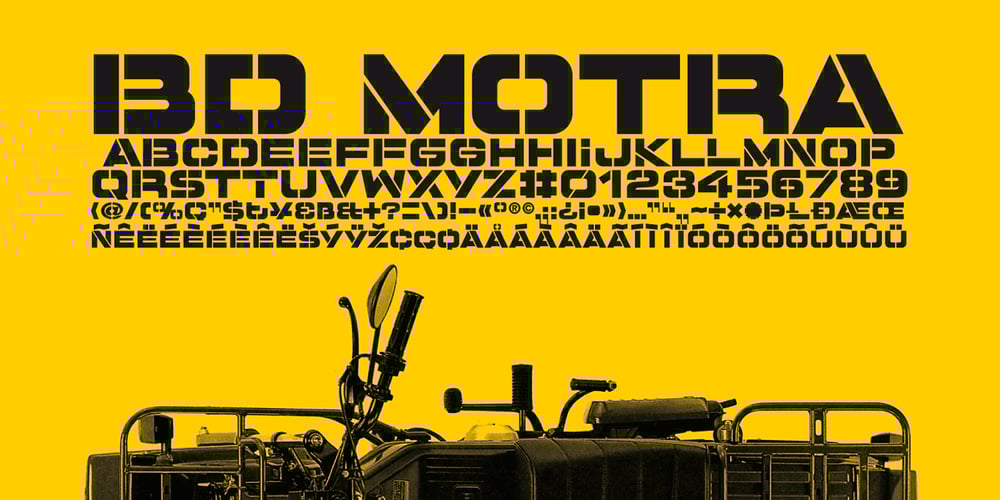
BD Motra Font Family was designed by Lorenz (Lopetz) Gianfreda and published by Typedifferent. BD Motra contains 1 styles and family package options. BD Motra is fat wide uppercase font with some variants on the small character keys. The inspiration source for this typeface is the stencil lettering on Honda’s rare Motra CT50 off-road scooter made in Japan 1982. The font usage ranges from big lettering on vehicles, cargo boxes, products, buildings with an industrial approach.